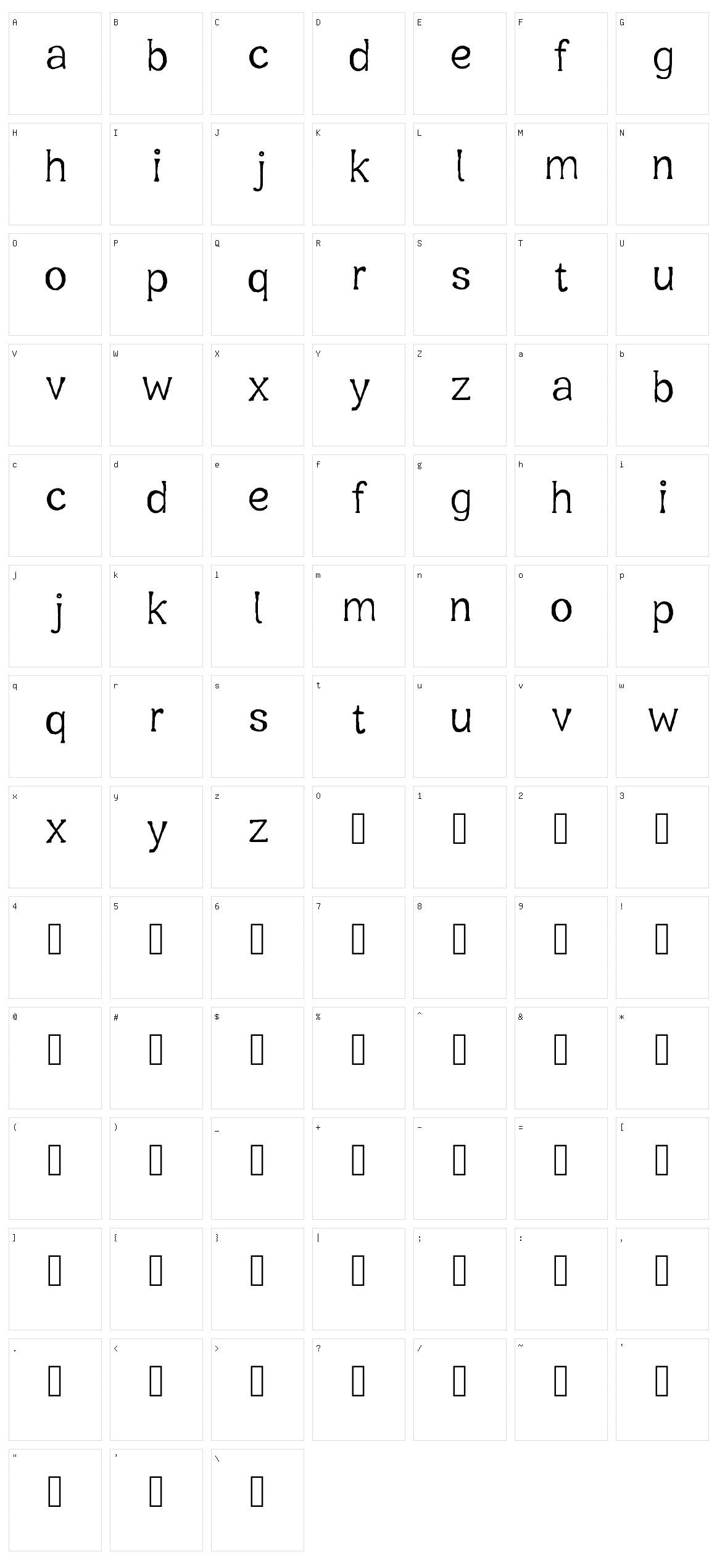
This font - a standard and has a range of only 26 of the small Latin letters.
Font drawn on the tablet. You can use it in the preparation of documents,
in which there are only small letters.